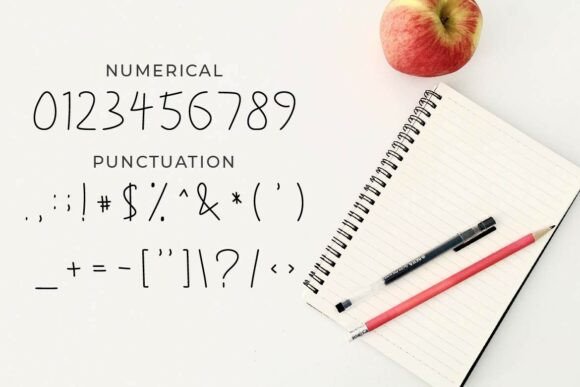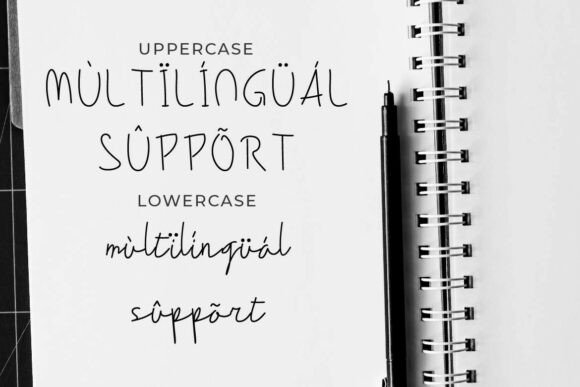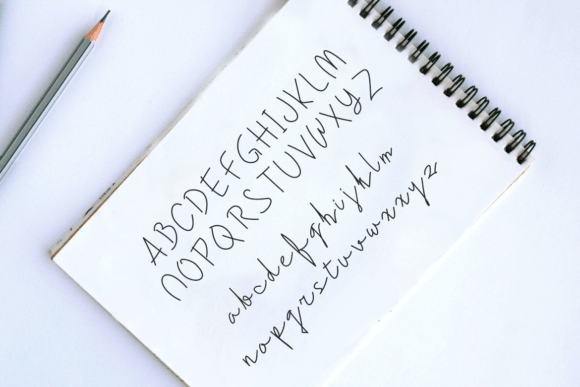
Introducing Bulletin Font: The Perfect Blend of Classic Charm and Modern Sophistication
In the world of typography, fonts play a crucial role in conveying the tone and personality of a brand. For designers and crafters, finding the right font can make all the difference in creating a visually appealing design. If you’re looking for a font that combines classic cursive charm with contemporary smoothness, look no further than Bulletin Font. In this article, we’ll explore the features and benefits of Bulletin Font, and why it’s the perfect choice for your next design project.
What is Bulletin Font?
Bulletin Font is a stylish script font that blends the elegance of traditional cursive writing with the fluidity of modern typography. Designed with graceful curves, flowing strokes, and a natural rhythm, Bulletin brings a handwritten warmth to any design. This font is perfect for creating logos, packaging, invitations, headlines, and retro-inspired branding that requires a touch of sophistication and whimsy.
Key Features of Bulletin Font
• Classic Cursive Charm: Bulletin Font boasts a classic cursive style that evokes a sense of nostalgia and timelessness. Its elegant curves and flowing strokes make it perfect for creating designs that require a touch of sophistication.
• Contemporary Smoothness: Despite its classic roots, Bulletin Font has a remarkably smooth and modern feel. This makes it an excellent choice for designers who want to create designs that are both retro and contemporary.
• Graceful Curves and Flowing Strokes: The font’s gentle curves and flowing strokes create a natural rhythm that makes it easy to read and visually appealing.
• Handwritten Warmth: Bulletin Font has a distinctly handwritten feel that adds a touch of warmth and personality to any design.
Use Cases for Bulletin Font
Bulletin Font is an incredibly versatile font that can be used in a wide range of design applications. Here are some of the most popular use cases:
• Logos: Create a memorable and stylish logo for your brand with Bulletin Font. Its classic cursive charm and modern smoothness make it perfect for businesses that want to convey a sense of sophistication and elegance.
• Packaging: Add a touch of whimsy and personality to your product packaging with Bulletin Font. Its handwritten warmth and flowing strokes make it perfect for creating eye-catching labels and packaging designs.
• Invitations: Create beautiful and elegant invitations for special occasions such as weddings, birthdays, and anniversaries. Bulletin Font’s classic cursive style and modern smoothness make it perfect for formal and informal events.
• Headlines: Use Bulletin Font to create stunning headlines for your blog posts, articles, and social media updates. Its bold and flowing strokes make it perfect for grabbing attention and conveying your message.
• Retro-Inspired Branding: Create a retro-inspired brand identity with Bulletin Font. Its classic cursive charm and modern smoothness make it perfect for businesses that want to evoke a sense of nostalgia and timelessness.
Why Choose Bulletin Font?
With so many fonts available, why choose Bulletin Font? Here are a few compelling reasons:
• Unique Style: Bulletin Font has a unique and distinctive style that sets it apart from other fonts. Its blend of classic cursive charm and modern smoothness makes it perfect for designers who want to create designs that stand out.
• Versatility: Bulletin Font is an incredibly versatile font that can be used in a wide range of design applications. Whether you’re creating a logo, packaging, or invitation, Bulletin Font is the perfect choice.
• Easy to Read: Despite its elegant curves and flowing strokes, Bulletin Font is remarkably easy to read. This makes it perfect for designs that require a touch of sophistication and whimsy.
Font Name Bulletin Font
Author Artiveko
In conclusion, Bulletin Font is a stylish script font that blends classic cursive charm with contemporary smoothness. With its graceful curves, flowing strokes, and natural rhythm, Bulletin brings a handwritten warmth to any design. Whether you’re a designer or crafter, Bulletin Font is the perfect choice for creating logos, packaging, invitations, headlines, and retro-inspired branding that requires a touch of sophistication and whimsy. So why wait? Try Bulletin Font today and take your designs to the next level!